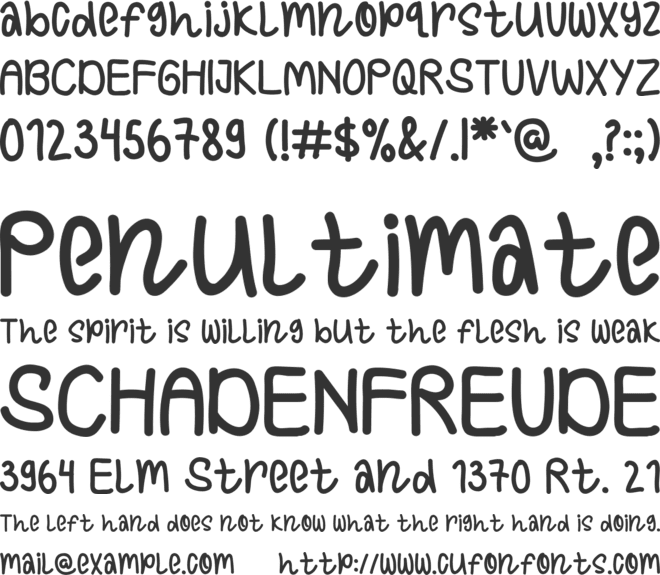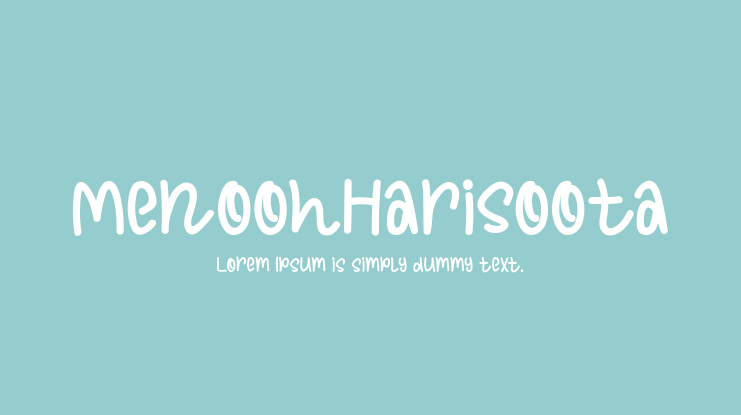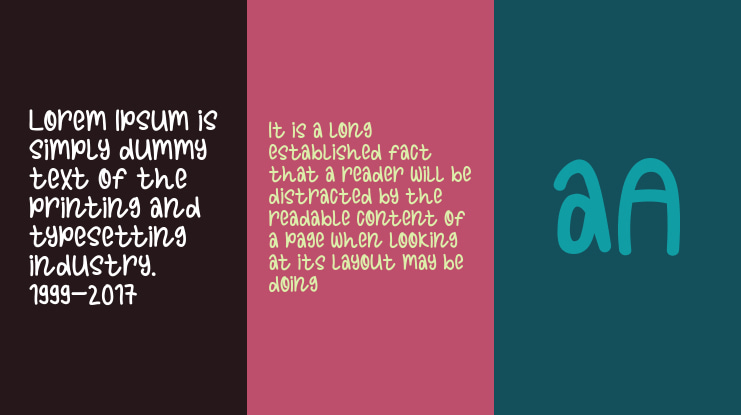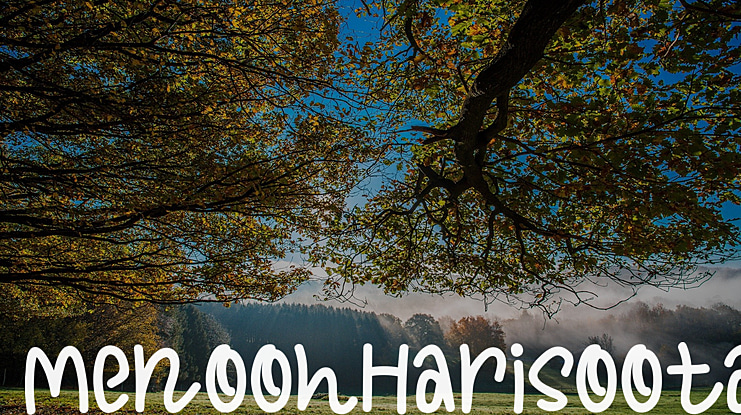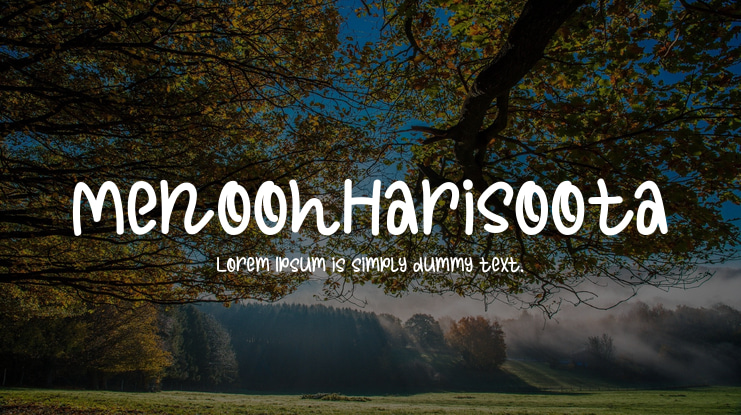
MenoohHarisoota Font
Menooh Harisoota Font
Menooh Harisoota Font is a Display Font with small and simple letters. This Font is perfect for all of your Product Design such as Social Media Post, Advertisement, etc that has joyful and fun feels.